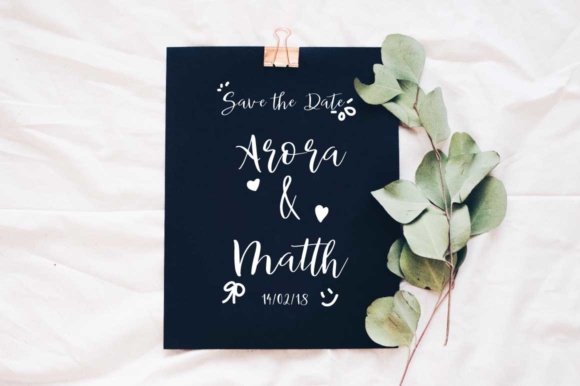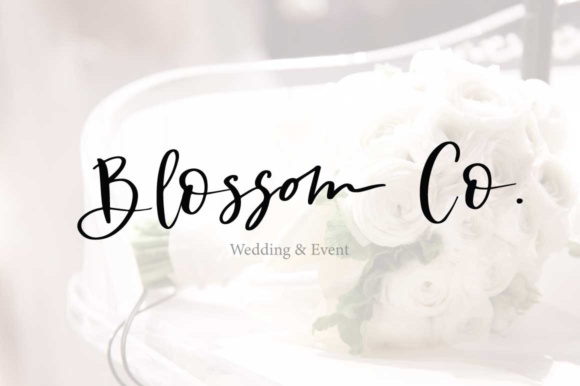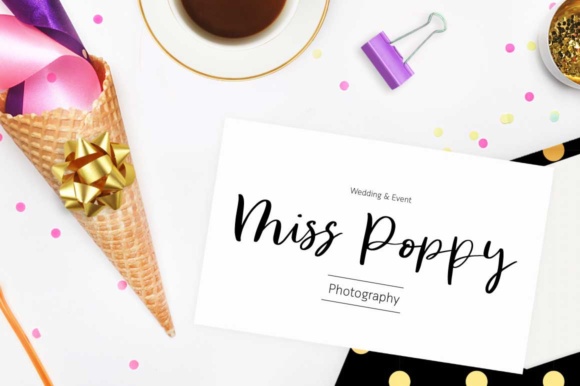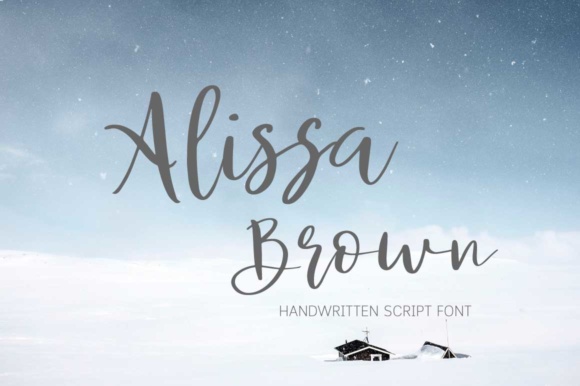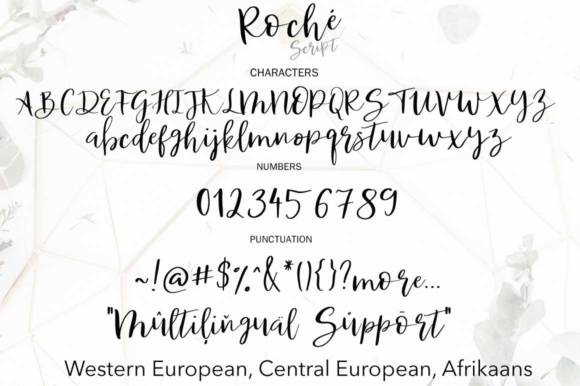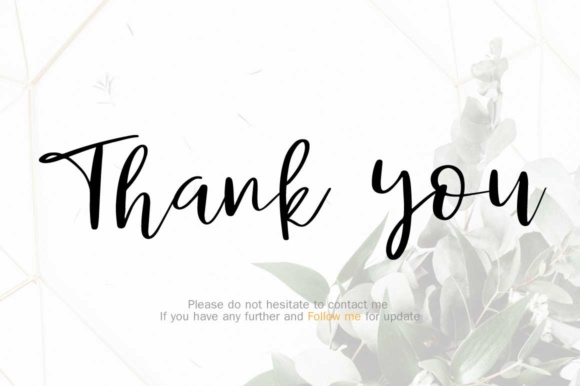
Introduction to Roche Script Font
The Roche Script is a modern, elegant font.
Every single letter has been carefully created to make your text look chic .
Key Features of Roche Script Font
Why Choose Roche Script Font?
Roche Script Font offers exceptional quality and versatility, making it a valuable addition to your design toolkit. Whether you’re creating for personal projects or commercial use, Roche Script Font delivers professional results.